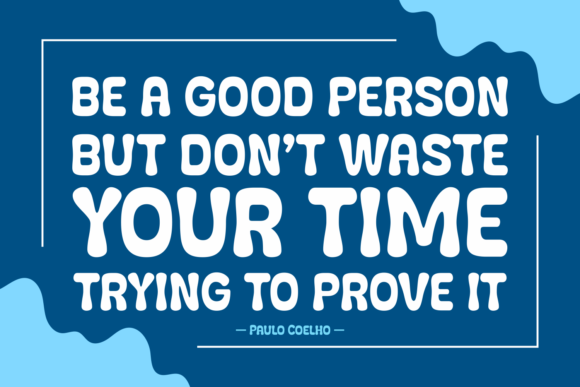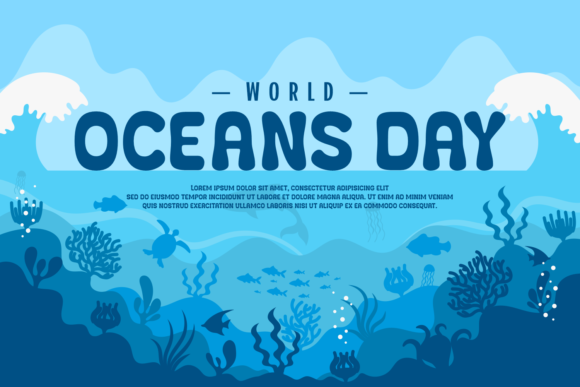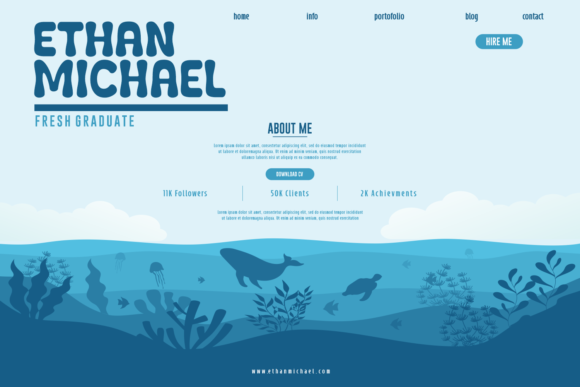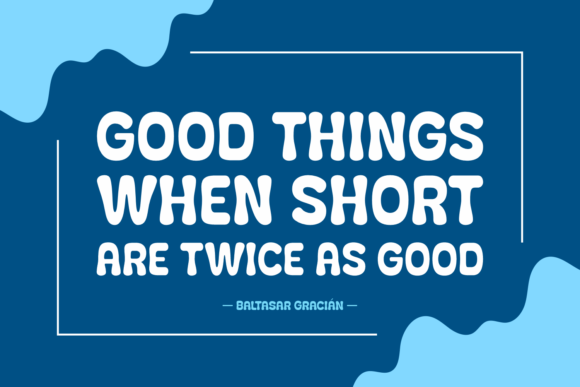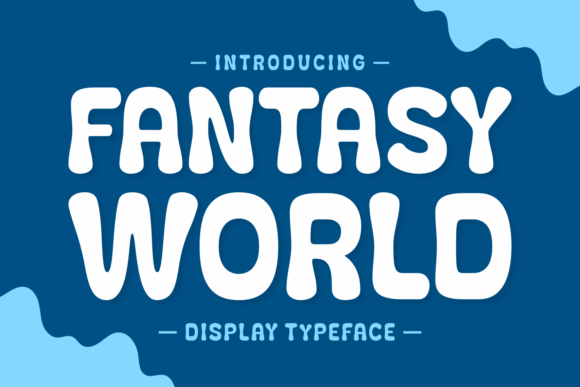
Fantasy World Font: The Ultimate Choice for Whimsical Designs
Are you a designer, crafter, or educator looking for a font that embodies playfulness and authenticity? Look no further than the Fantasy World font! This whimsical and cool display font is perfect for any children activity or school project that requires a dash of imagination and fun.
What is Fantasy World Font?
Fantasy World font is a unique and creative typeface designed to transport you and your audience to a world of fantasy and wonder. Its playful and authentic feel makes it an ideal choice for designs that require a touch of magic, such as children’s books, educational materials, craft projects, and more.
Key Features of Fantasy World Font
• Whimsical Design: Fantasy World font boasts a whimsical design that is sure to capture the imagination of your audience. Its unique and creative letterforms are perfect for designs that require a touch of fantasy and playfulness.
• Playful and Authentic Feel: This font embodies a playful and authentic feel that makes it perfect for children’s activities, school projects, and craft designs.
• Display Font: Fantasy World font is a display font, making it perfect for headlines, titles, and other design elements that require a bold and eye-catching font.
• Easy to Read: Despite its whimsical design, Fantasy World font is easy to read, making it perfect for designs that require a font that is both fun and functional.
Uses of Fantasy World Font
Fantasy World font is a versatile font that can be used in a variety of designs, including:
• Children’s Books and Activities: This font is perfect for children’s books, activity sheets, and educational materials that require a fun and playful font.
• School Projects: Fantasy World font is ideal for school projects that require a creative and imaginative font, such as presentations, posters, and brochures.
• Craft Designs: This font is perfect for craft designs, such as scrapbooking, card making, and other paper crafts that require a whimsical and creative font.
• Digital Designs: Fantasy World font can also be used in digital designs, such as social media graphics, blog posts, and website headers.
Tips for Using Fantasy World Font
Here are some tips for using Fantasy World font in your designs:
• Use it for Headlines and Titles: Fantasy World font is perfect for headlines and titles that require a bold and eye-catching font.
• Pair it with Other Fonts: This font can be paired with other fonts to create a unique and creative design. Try pairing it with a serif font for a contrasting look.
• Experiment with Colors: Fantasy World font looks great in a variety of colors. Experiment with different colors to find the perfect one for your design.
Font Name Fantasy World Font
Author Jasm (7NTypes)
In conclusion, Fantasy World font is a whimsical and cool display font that embodies playfulness and authenticity. Its unique and creative design makes it perfect for children’s activities, school projects, craft designs, and other designs that require a touch of fantasy and imagination. With its ease of use and versatility, Fantasy World font is sure to become a favorite among designers, crafters, and educators.